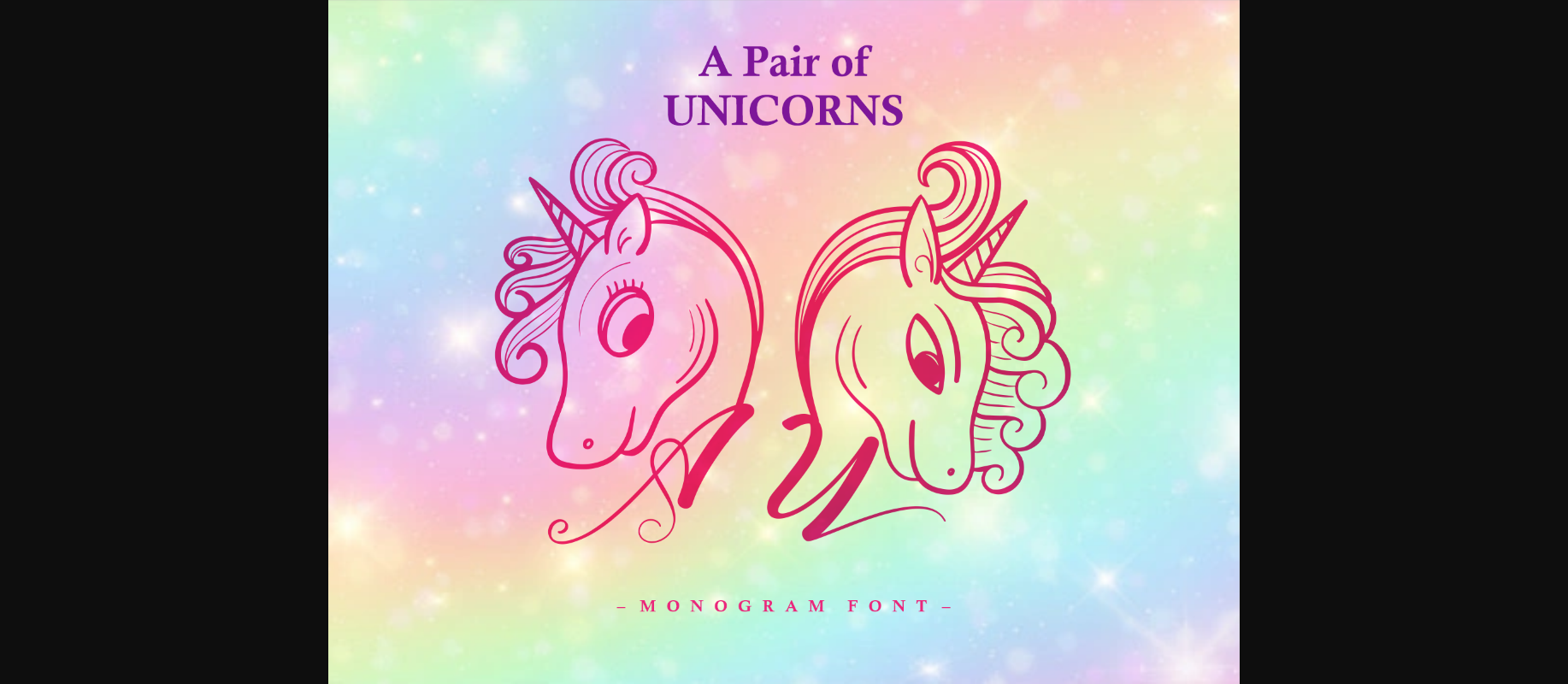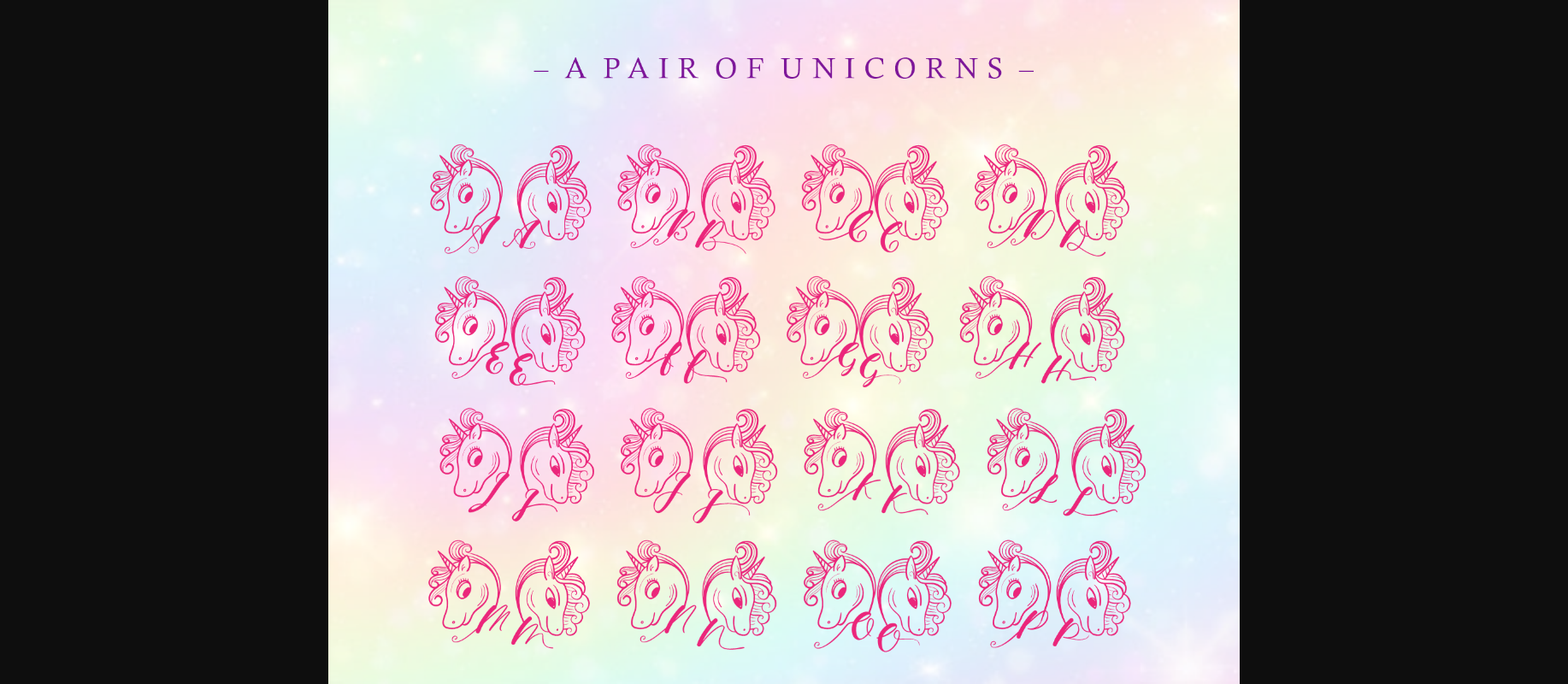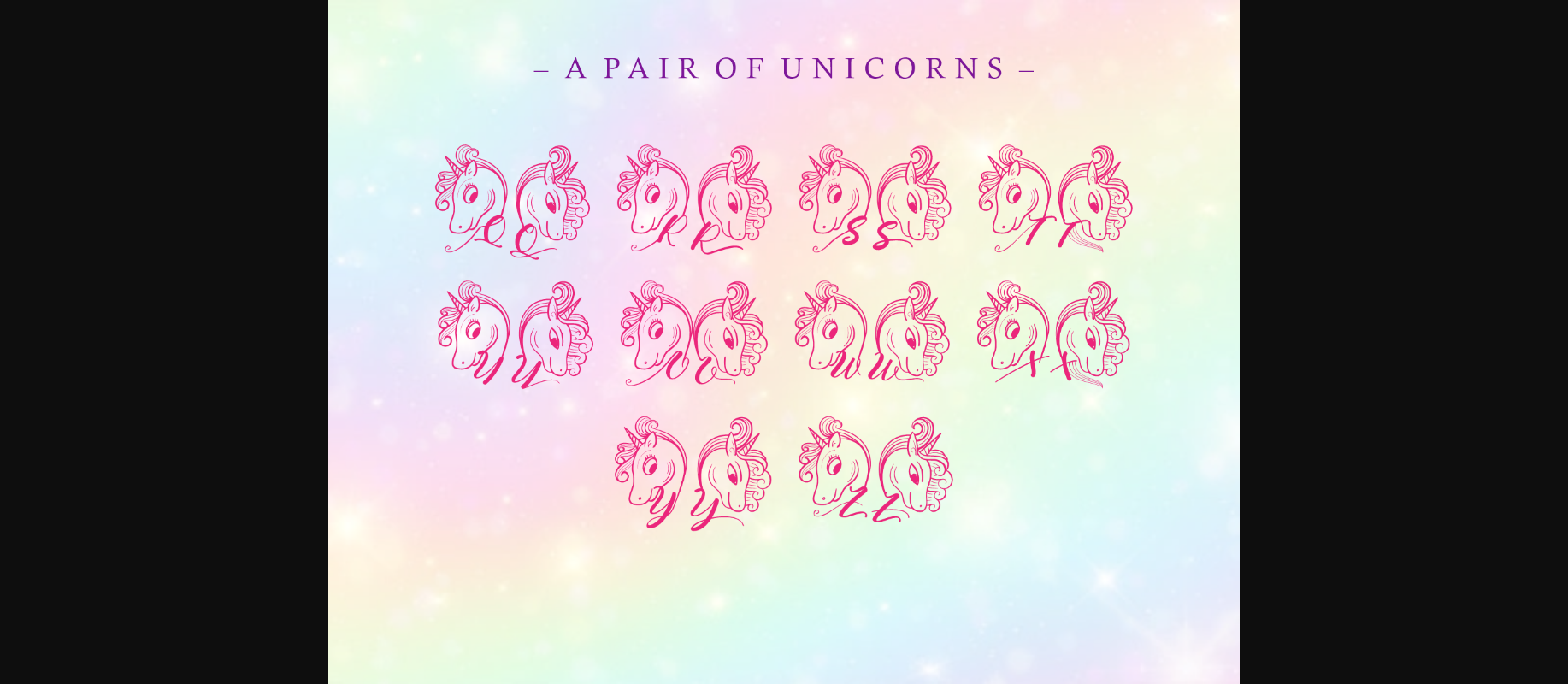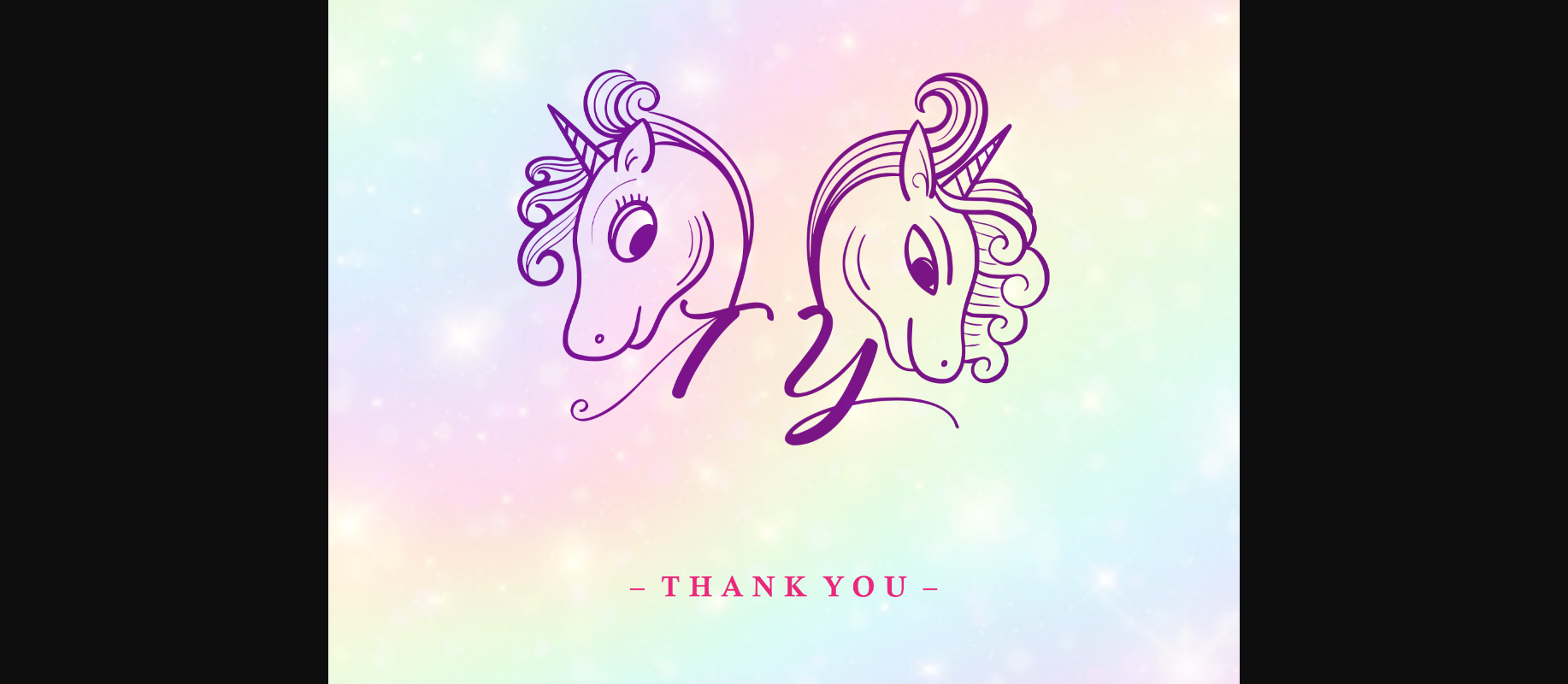
A Pair of Unicorns Font
About A Pair of Unicorns Font
A Pair of Unicorns is an incredibly unique and angelic decorative font, featuring cool unicorns as ornaments. Fall in love with its lovely style and use it to create gorgeous wedding invitations, beautiful stationary art, eye-catching social media posts, and much more!